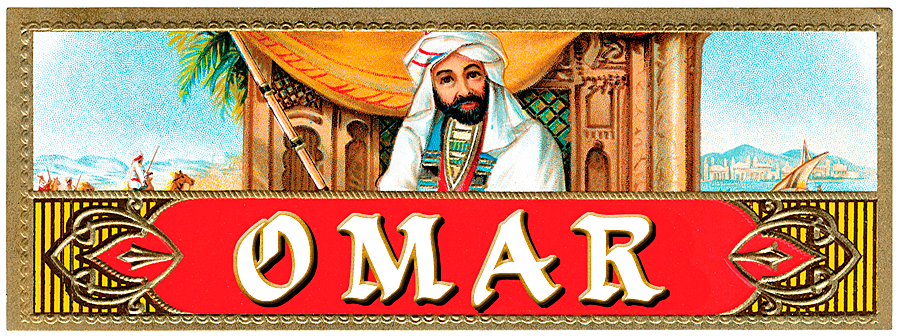
Ascribe1.0by David Parr
This useful Calligraphic set has an old-world Middle Eastern feel, but with enough simplicity to use in modern designs. LHF Ascribe has the appearance found on ancient sacred writings, which makes it perfect for scroll text. Well balanced letters make for readable blocks of copy or headings. Set includes Regular & Distressed versions, and bonus alternates.
Ascribe Regular
Ascribe Distressed
Bonus Alternates
OPENTYPE ALTERNATES AVAILABLE IN BOTH VERSIONS
Distressed Detail